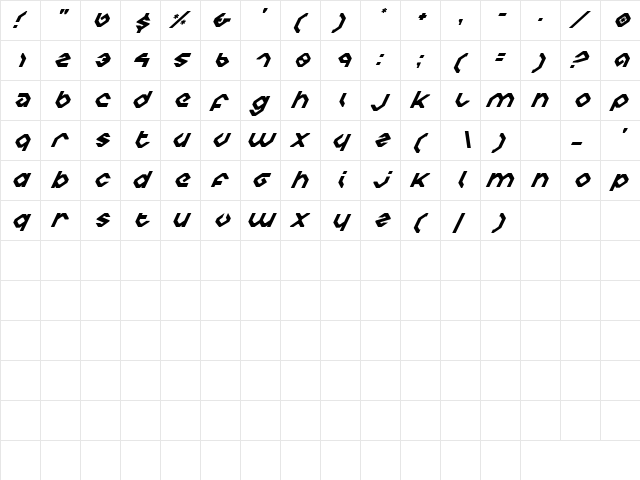
Charlie's Angles Italic Italic
Design Context for Charlie's Angles Italic Typeface
Charlie's Angles Italic is a composed and adaptable typeface that performs quietly and consistently across a wide range of design contexts. The dynamic lean of this cut emphasises speed and emphasis in any layout.